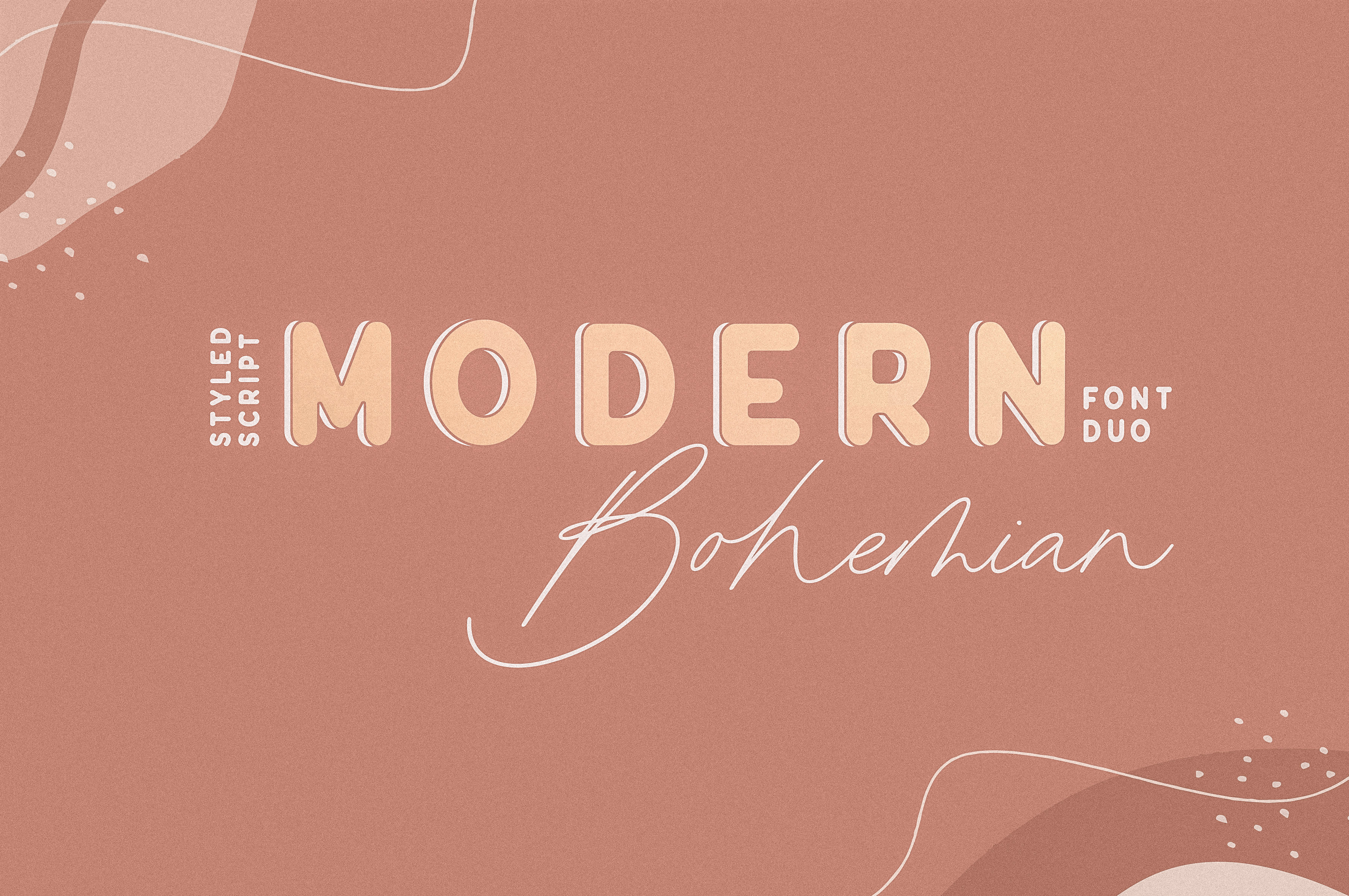
Modern Bohemian Font Duo
Introducing the fashionable Modern Bohemian Font Duo!
This dynamic duo was built with OpenType features and includes numbers, punctuation, ligatures and supports other languages.
- Multilingual capabilities are available for this font. Characters include: ÁÂÄÀÅÃÆCÐÉÊËÈÍÎÏÌ ŁÑÓÔÖÒØÕŒÞŠÚÛÜÙẂŴẄẀÝŶŸỲŽáâäàåãæçdððéêëèíîïìłñóôöòøõœþšßúûüùẃŵẅẁýŷÿỳž